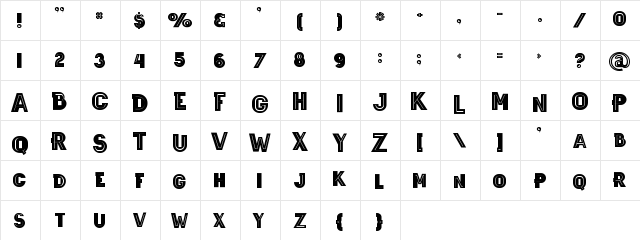
Wagoon bold inline Regular
Design Context for Wagoon bold inline Typeface
Wagoon bold inline is built around its visual character rather than neutral utility — its distinctive forms are designed to make an impression at display sizes. The heavy weight commands attention and anchors typographic hierarchies.
Font Pairing: Pair with a clean neutral sans-serif for body copy to let Wagoon bold inline's character lead without overwhelming the composition.
Pro Tip: Use Wagoon bold inline exclusively at display sizes — it was designed to be seen, not read at length. Let a neutral companion handle body copy.